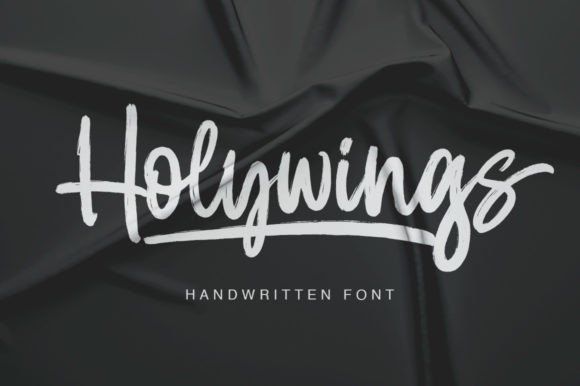
**Indulge in the Enchanting Embrace of Holywings: The Quintessential Script for Your Storytelling Canvas**
Welcome to the captivating world of Holywings, where every letter dances and every word captivates. This exquisite script tantalizes the senses, beckoning you to paint your words with unparalleled elegance and grace.
Crafted with the utmost care and precision, Holywings boasts an alluring blend of quick dry strokes and an undeniable signature style. Its graceful curves and playful flourishes ignite a symphony of emotions, leaving an unforgettable impression on the beholder.
Unleash your creativity with Holywings and transform your projects into masterpieces. Whether you're crafting a modern resume that demands attention or designing homeware that exudes sophistication, this font will elevate your creations to new heights.
Holywings effortlessly complements product packaging, adding a touch of luxury and allure. Its versatility knows no bounds, seamlessly�入any background image or poster, creating a symphony of visual delight.
Immerse yourself in the enchanting world of Holywings, where your words will take flight with boundless creativity and timeless charm. Discover the true meaning of storytelling excellence today!
**Key Features:**
* Exquisite script font with quick dry strokes and signature style
* Perfect for branding projects, homeware designs, and product packaging
* Enhances resumes, posters, and background images with unparalleled elegance
* PUA encoded for effortless access to glyphs and swashes